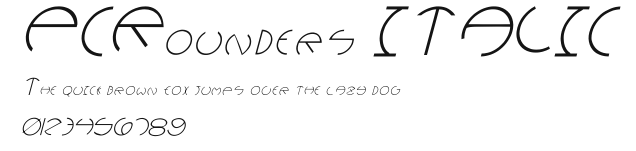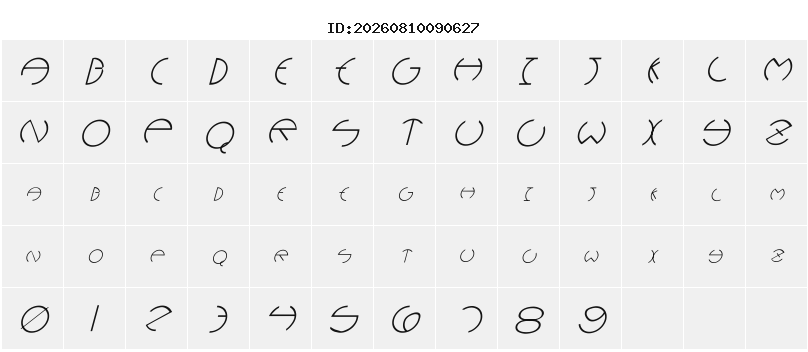
• Font Name: PCRounders ITALIC
About PCRounders ITALIC.ttf
PCRounders ITALIC.ttf is a modern, elegant sans-serif font designed for ultimate readability and visual harmony. Perfect for branding, headlines, web design, and print materials.